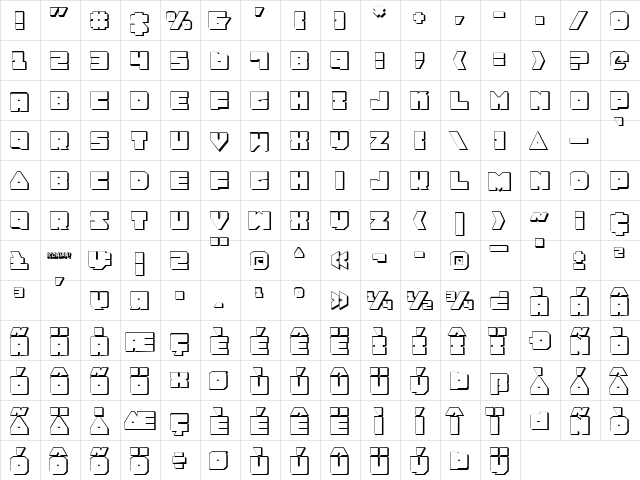
Lobo Tommy 3D Regular
Design Context for Lobo Tommy 3D Typeface
Lobo Tommy 3D is a composed and adaptable typeface that performs quietly and consistently across a wide range of design contexts.
Pro Tip: Use Lobo Tommy 3D in both headline and body roles to test its range before committing to a single application.